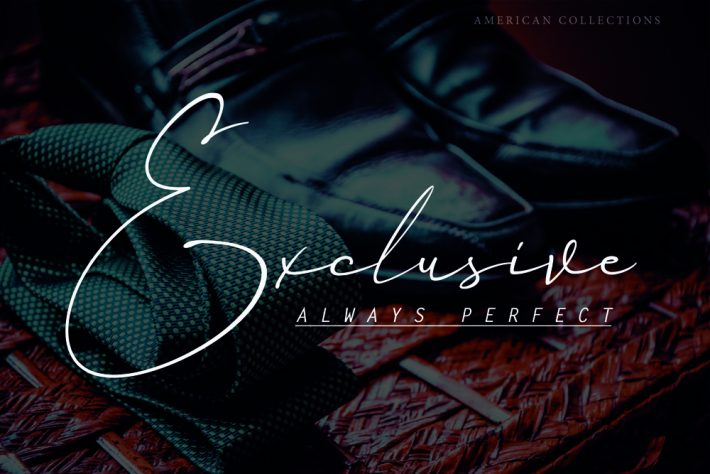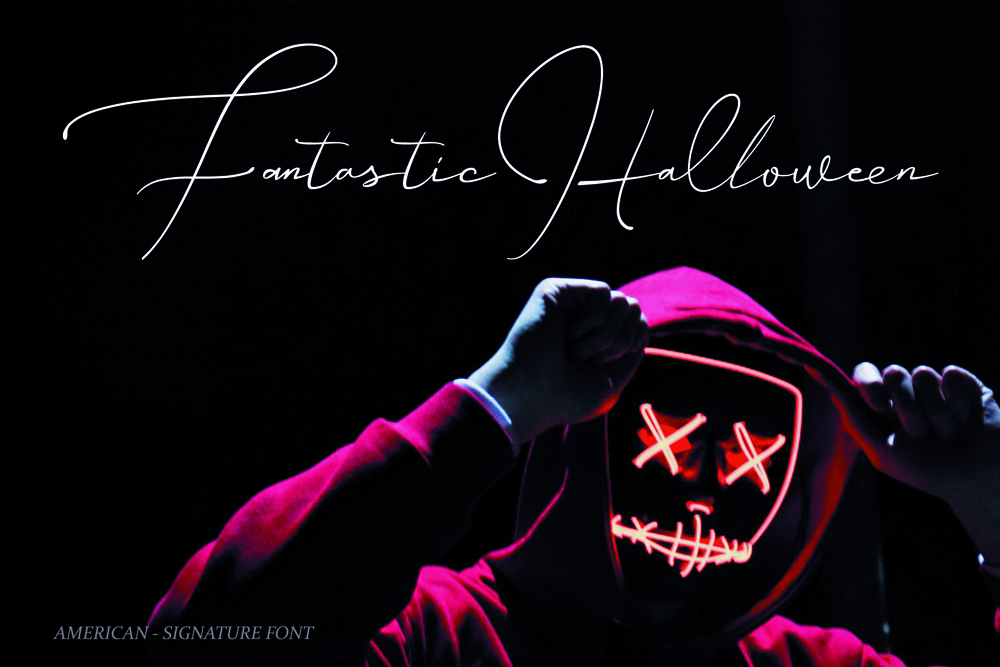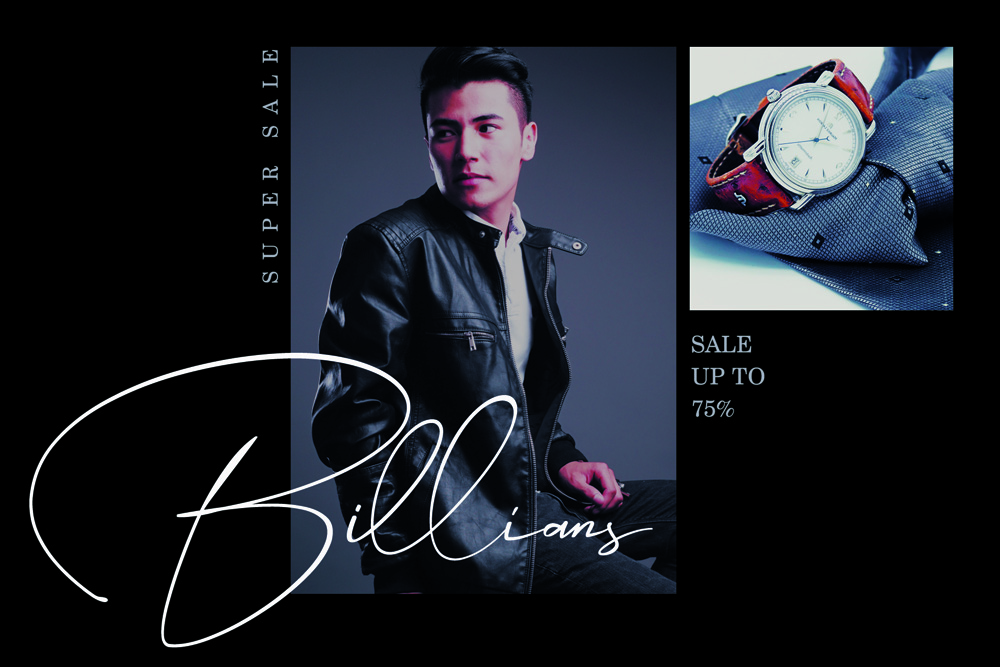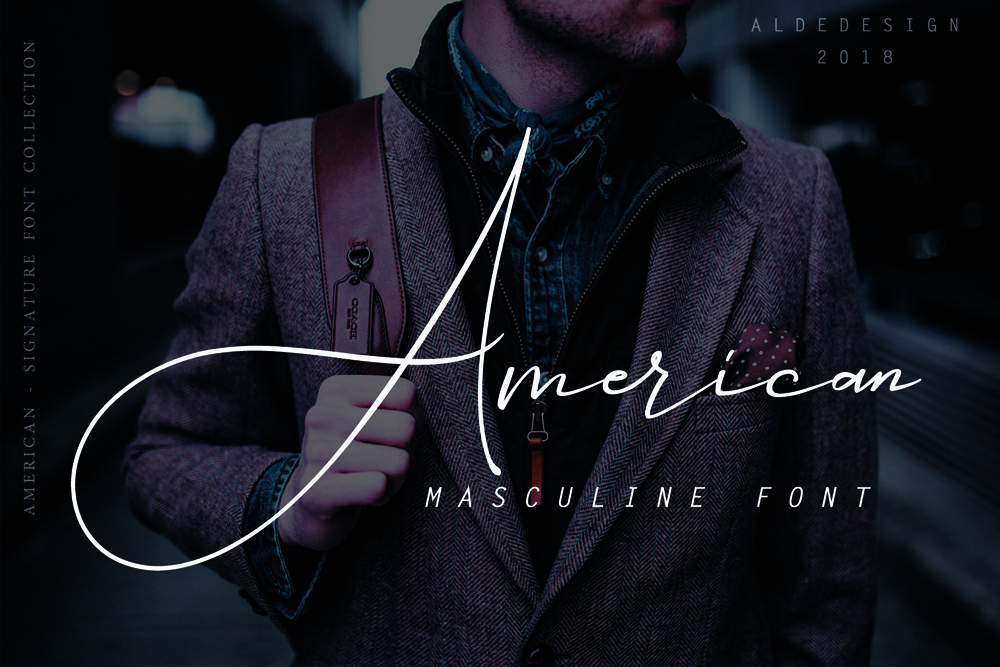
American Signature Font
American Signature
American Signature Font is a new handmade font called classic calligraphic font as well. It’s designed and shared by Aldedesign. This font will add an awesome, stylish and perfect feel to your design. This font is perfect for branding and decorate your any project.
This is perfect for wedding invitation or blog. An awesome logo can be created with this typeface. There’s no limitation where to use this. This font is free for personal use only.